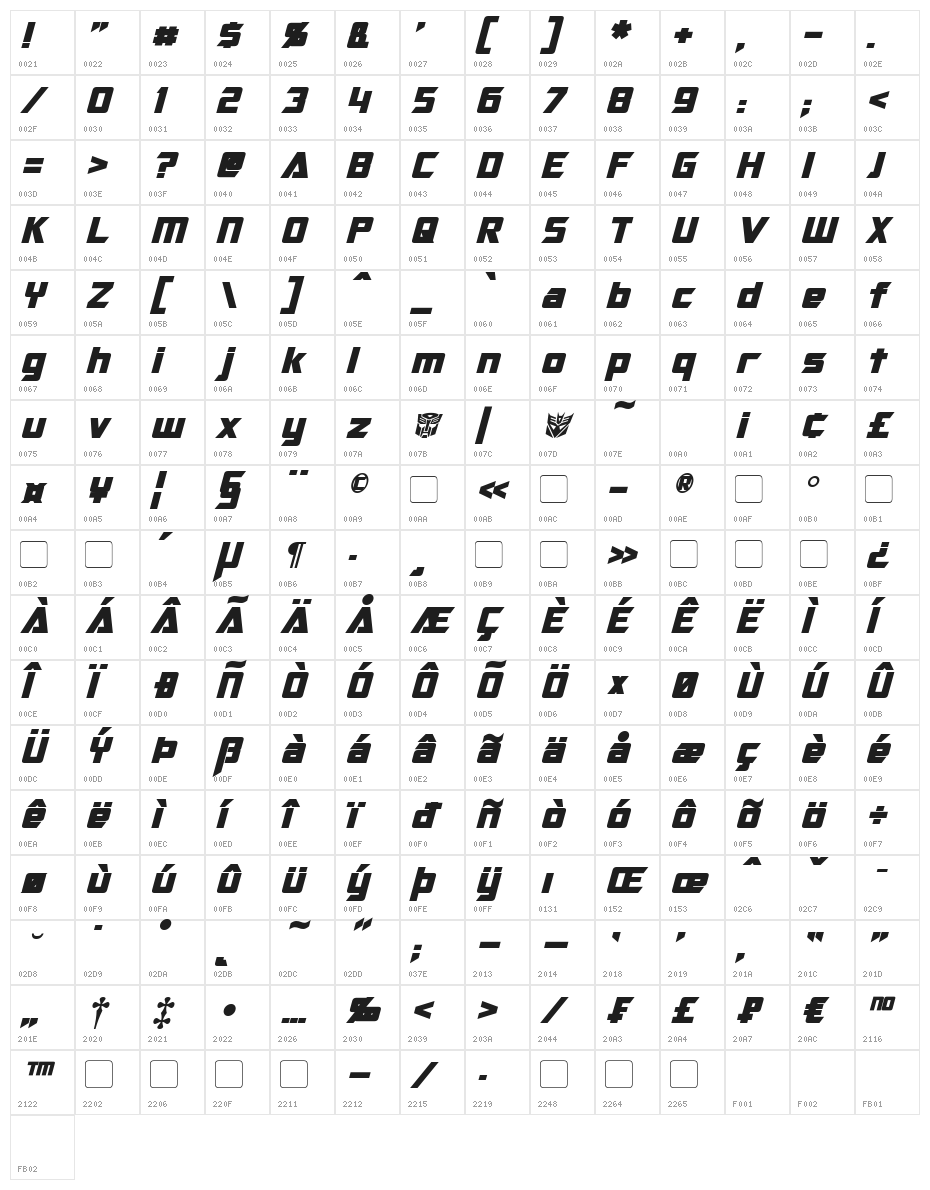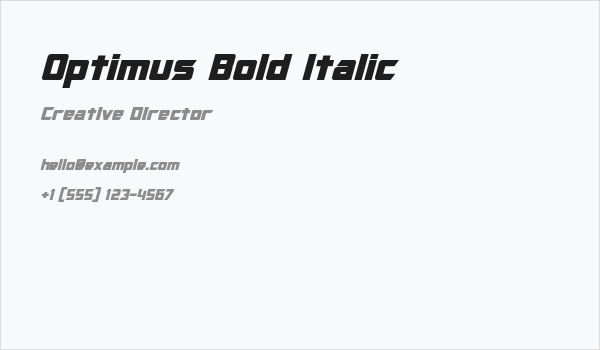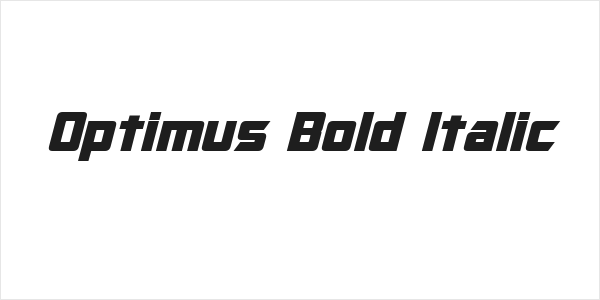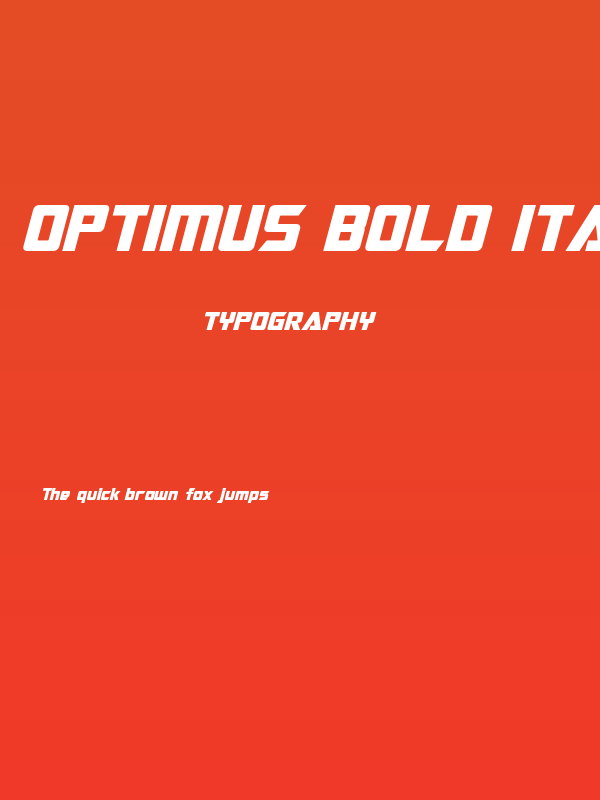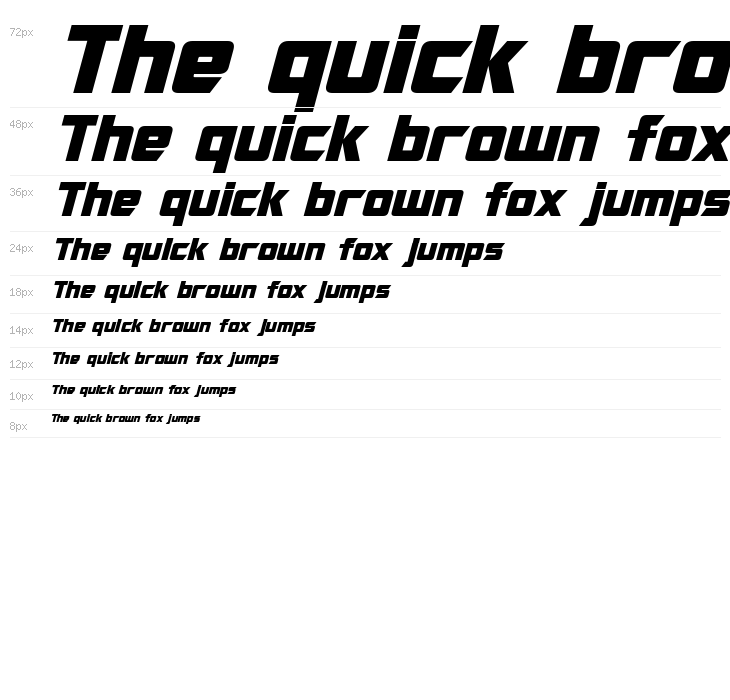
Optimus Bold Italic Font
Optimus Bold Italic Description
This font features a bold and italicized style with a futuristic and dynamic appearance. The characters are sharply angled, giving them a sense of motion and energy. The uppercase and lowercase letters maintain a consistent slant, enhancing the italic effect. The numbers and special characters follow the same design principles, ensuring uniformity across the typeface. The overall look is sleek and modern, making it suitable for projects that require a strong and impactful visual presence.
| Use Case | Logos, Headlines, Branding |
| Proposed Projects | Ideal for branding, sports team logos, technology-related designs, and dynamic advertising campaigns. |